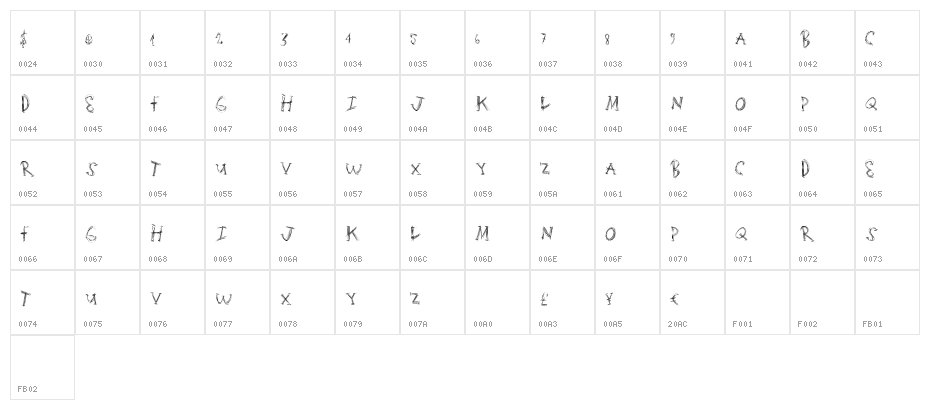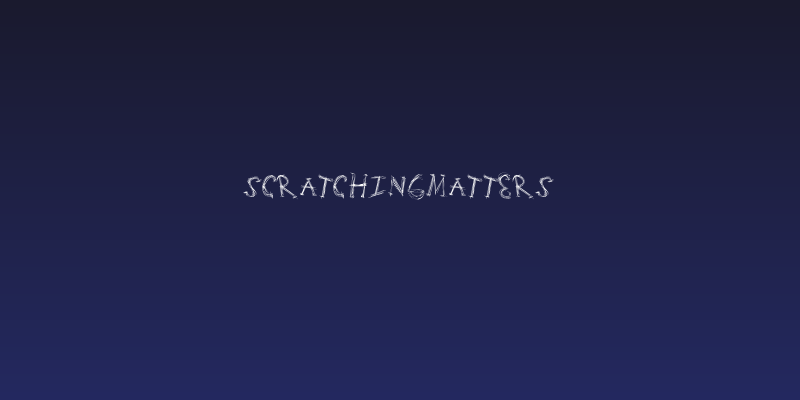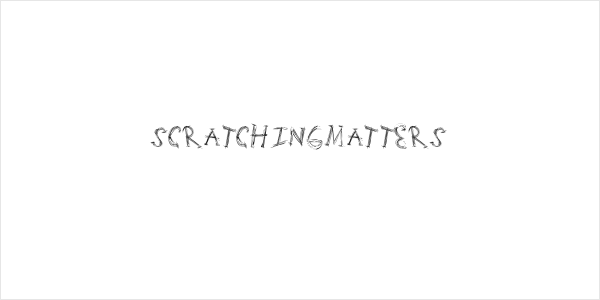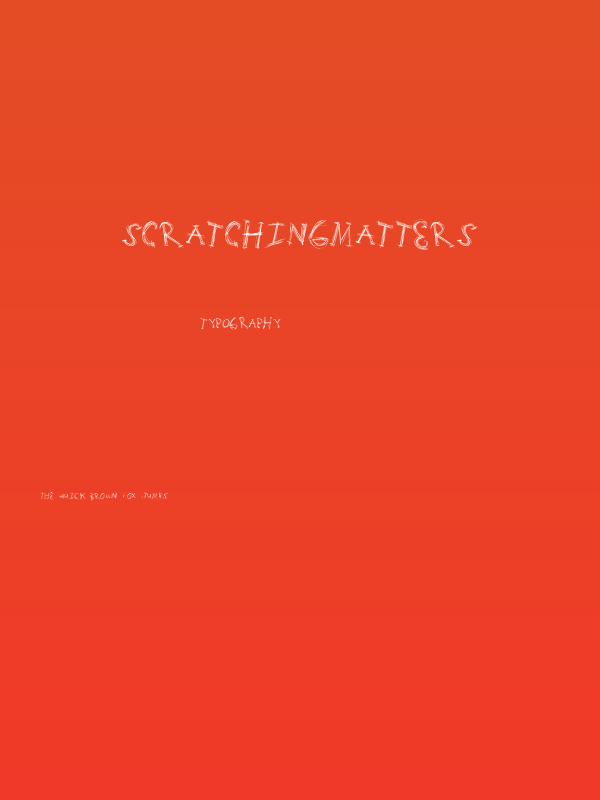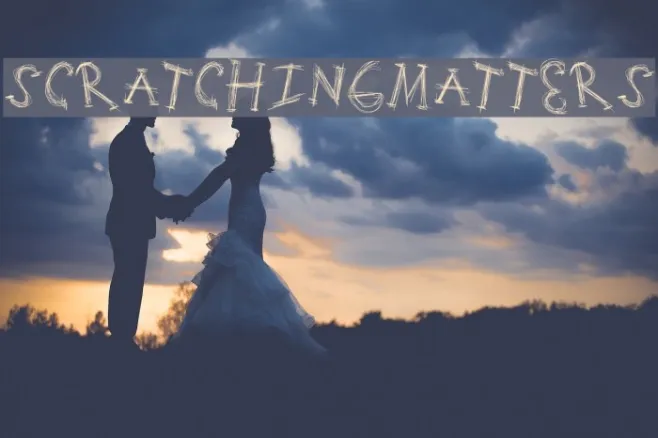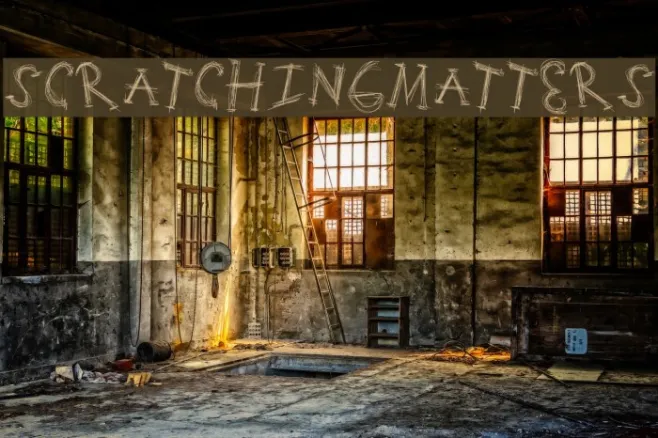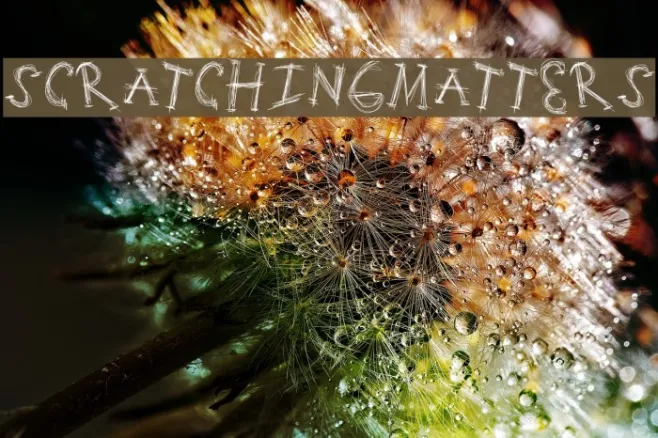
ScratchingMatters Font
ScratchingMatters Description
This font features a unique, hand-drawn style with a scratchy, textured appearance. Each character is crafted with irregular lines that give it a dynamic and edgy look, reminiscent of sketches or doodles. The uppercase and lowercase letters maintain a consistent style, while the numbers and special characters follow the same artistic theme. This font's distinctive design makes it stand out, perfect for projects that require a creative and unconventional touch.
| Use Case | Headlines, Artistic designs, Posters |
| Proposed Projects | Ideal for creative projects such as posters, album covers, or artistic branding that seeks a unique and unconventional style. |